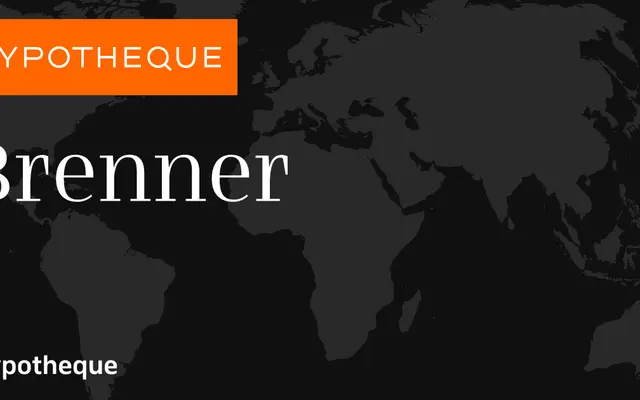
Brenner specimen from Typotheque
A humanist sans-serif from Typotheque offered in four weights with matching italics and a variable font edition.
Available in Light through Bold with corresponding italics, the family covers standard text setting requirements across a range of languages. A variable font version accompanies the static styles, offering continuous interpolation across the weight axis. The naming of styles after world cities suggests an internationalist design sensibility appropriate to Typotheque's multilingual output.
The specimen and weight range suggest a humanist sans-serif construction, typical of Typotheque's text-oriented Latin families. No further structural notes are available from the scraped content.